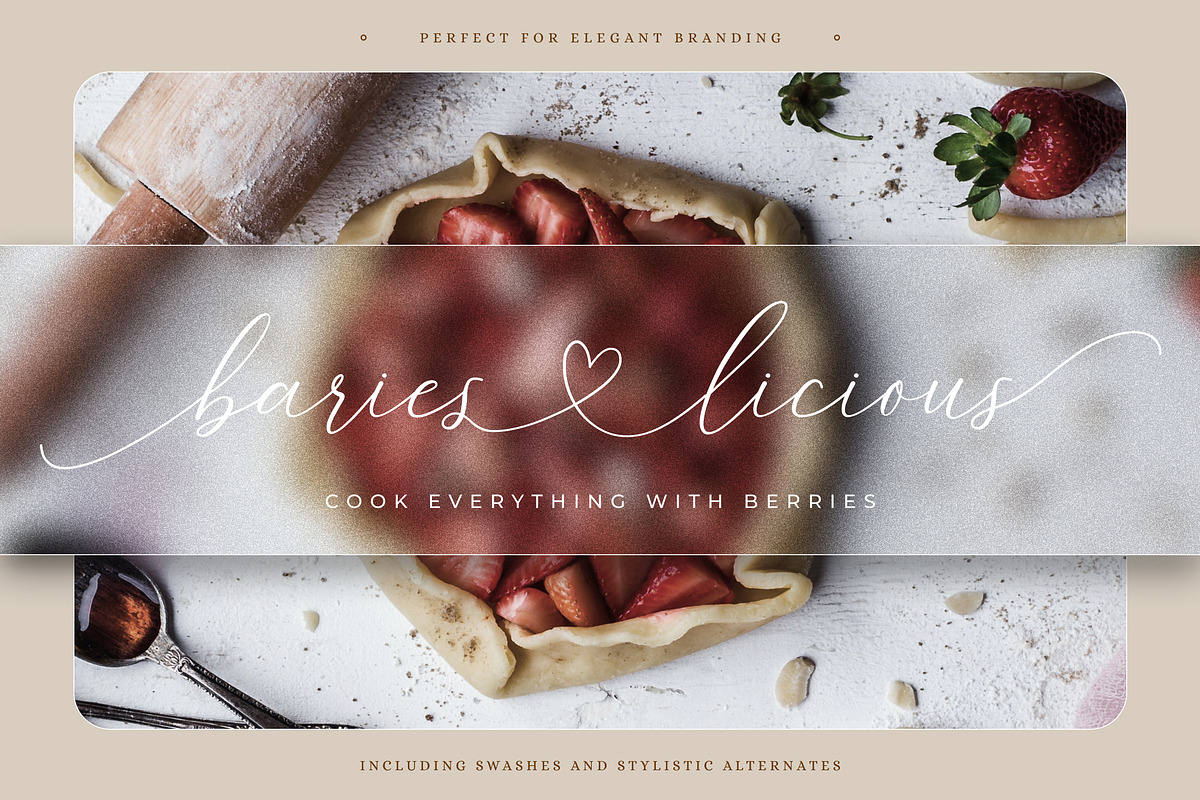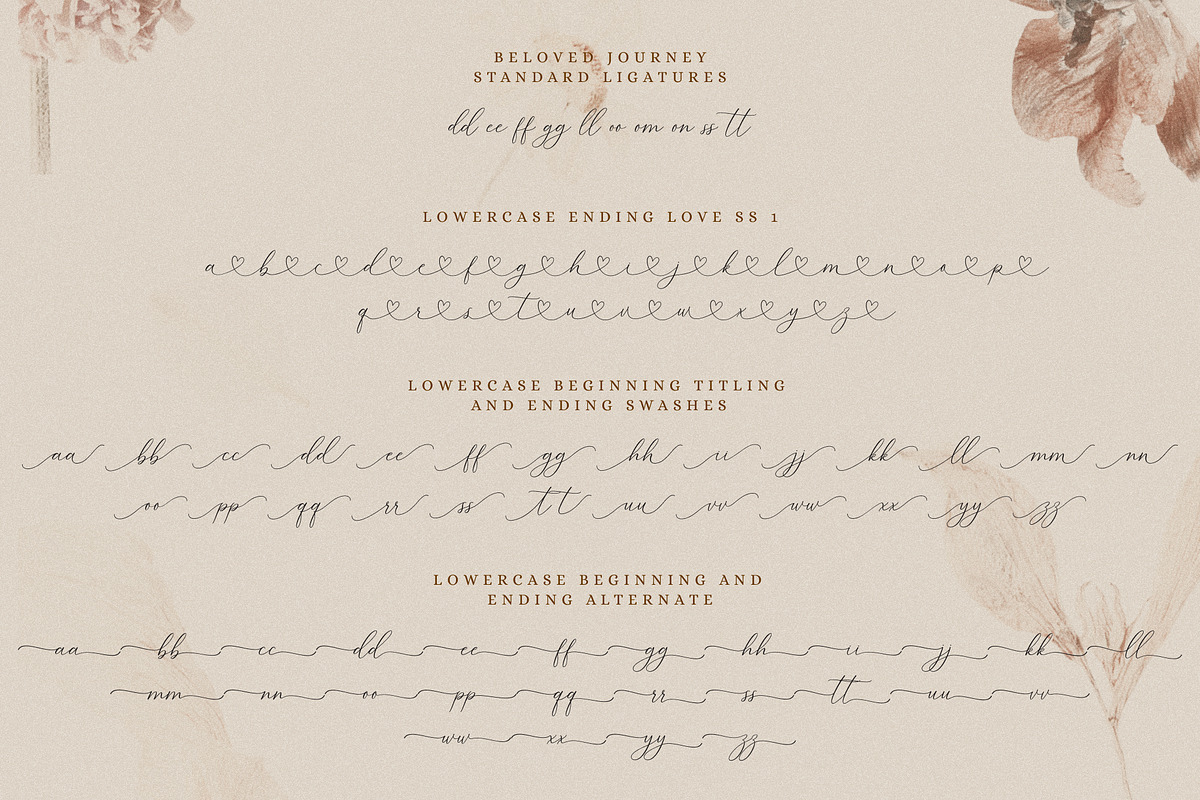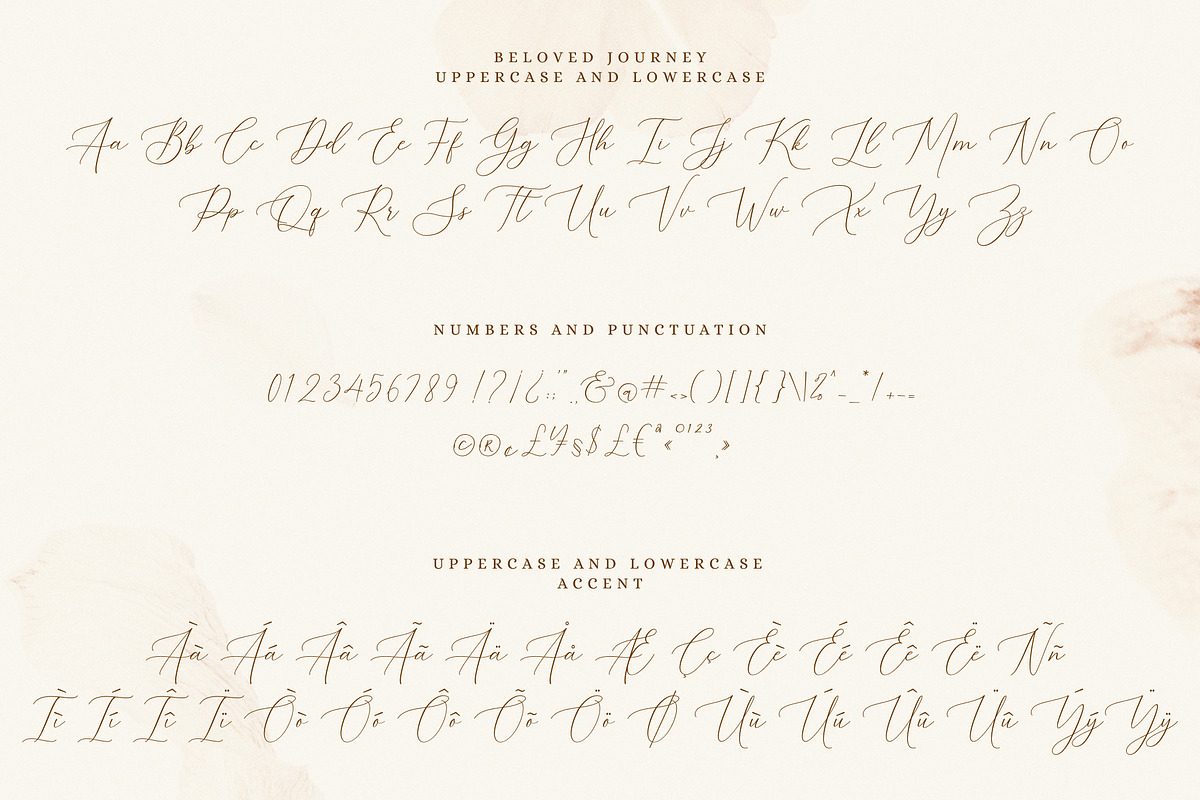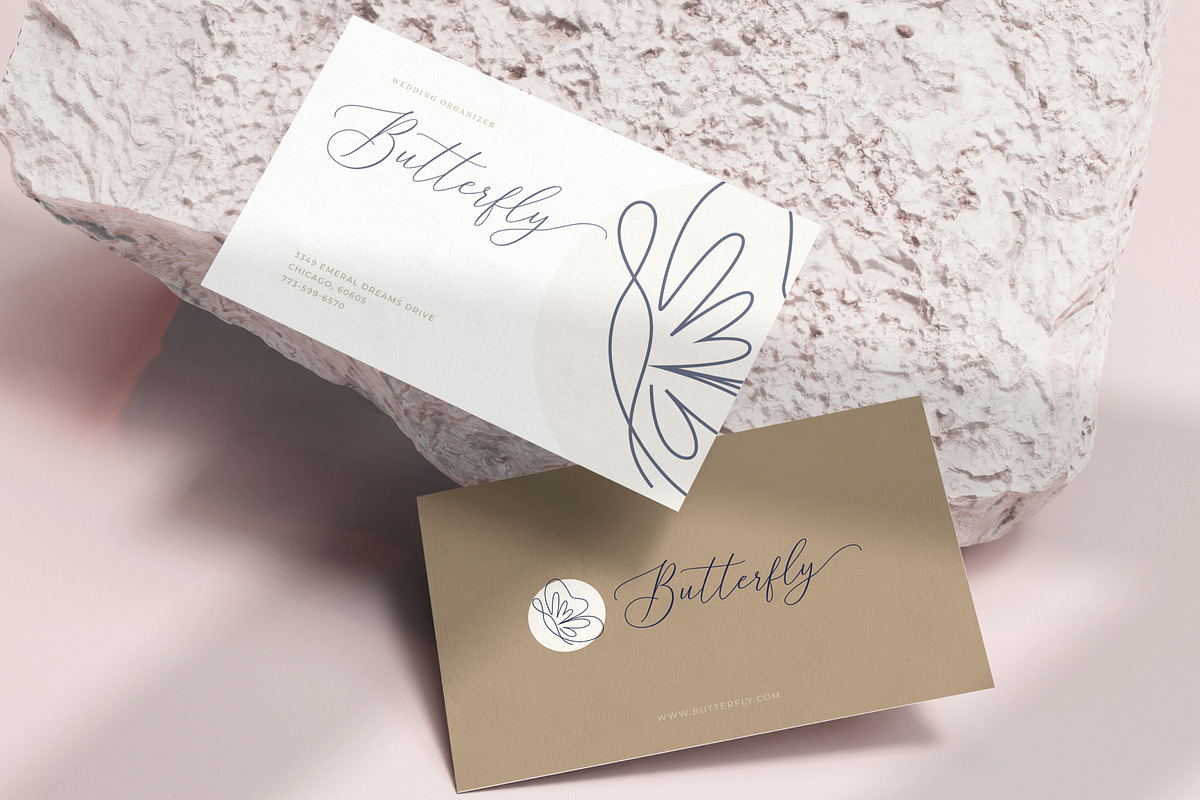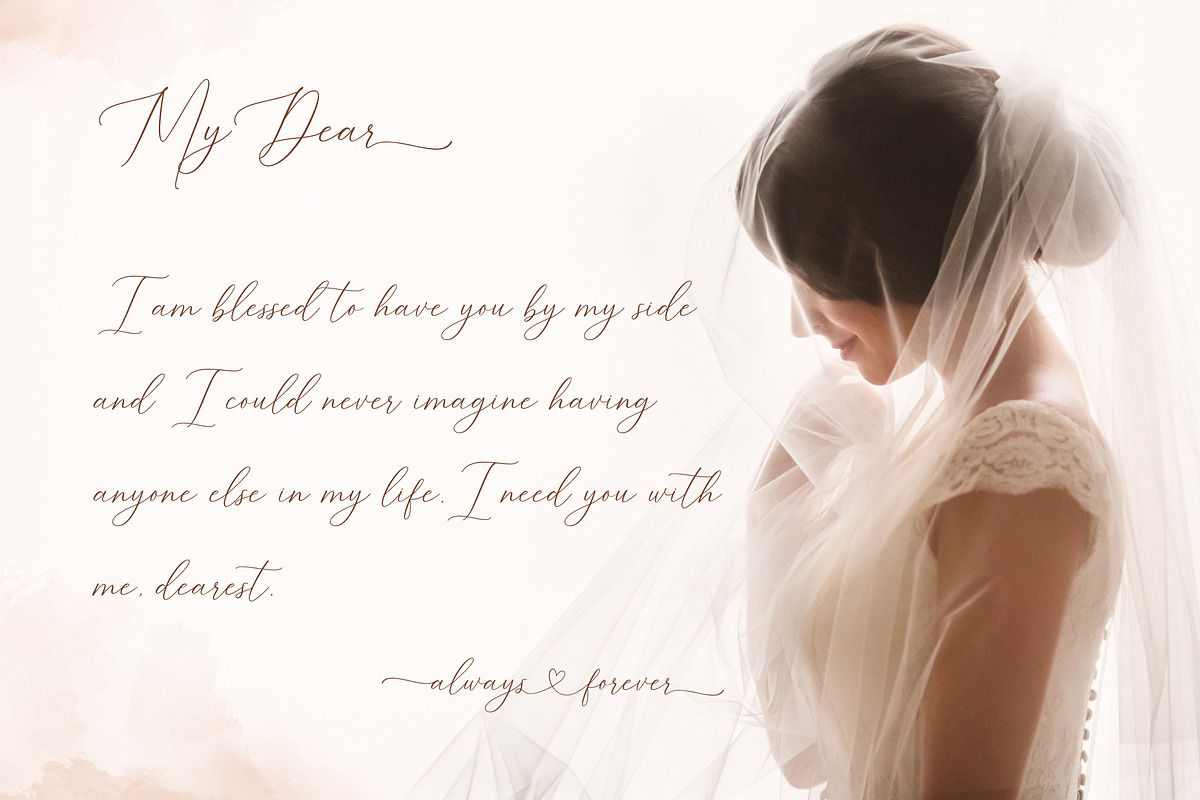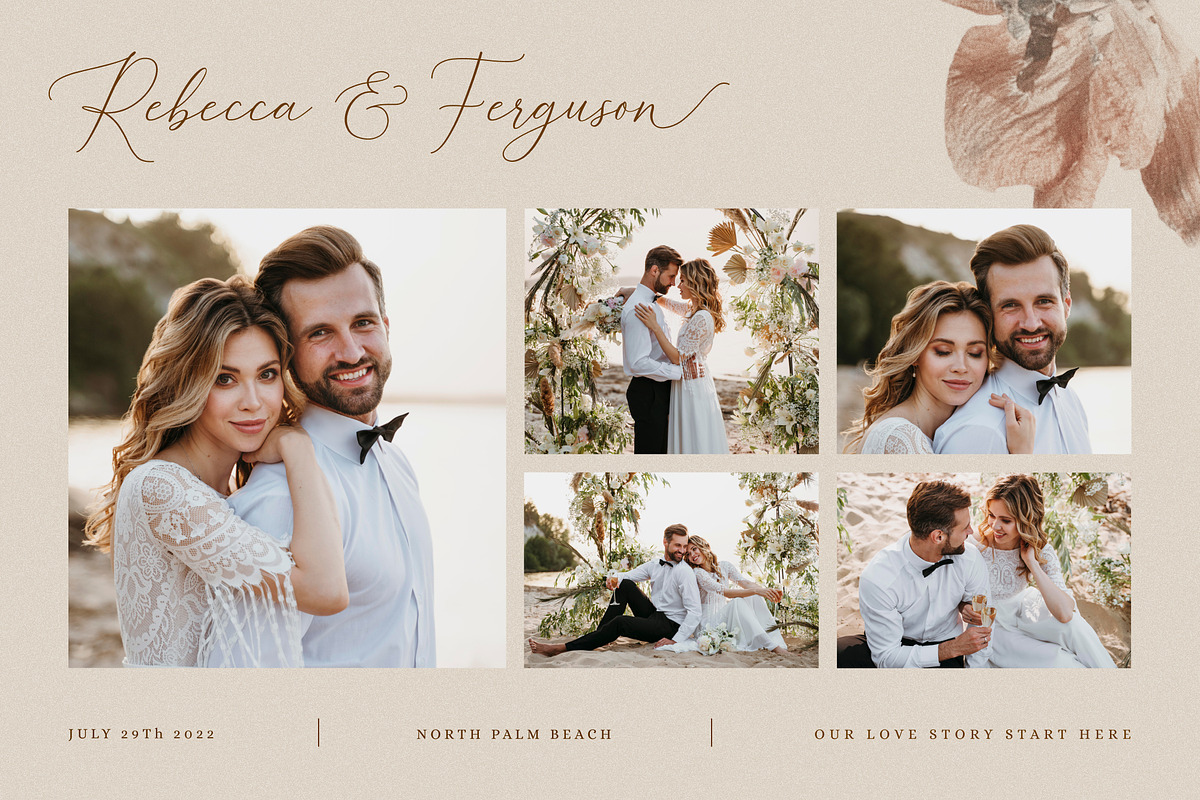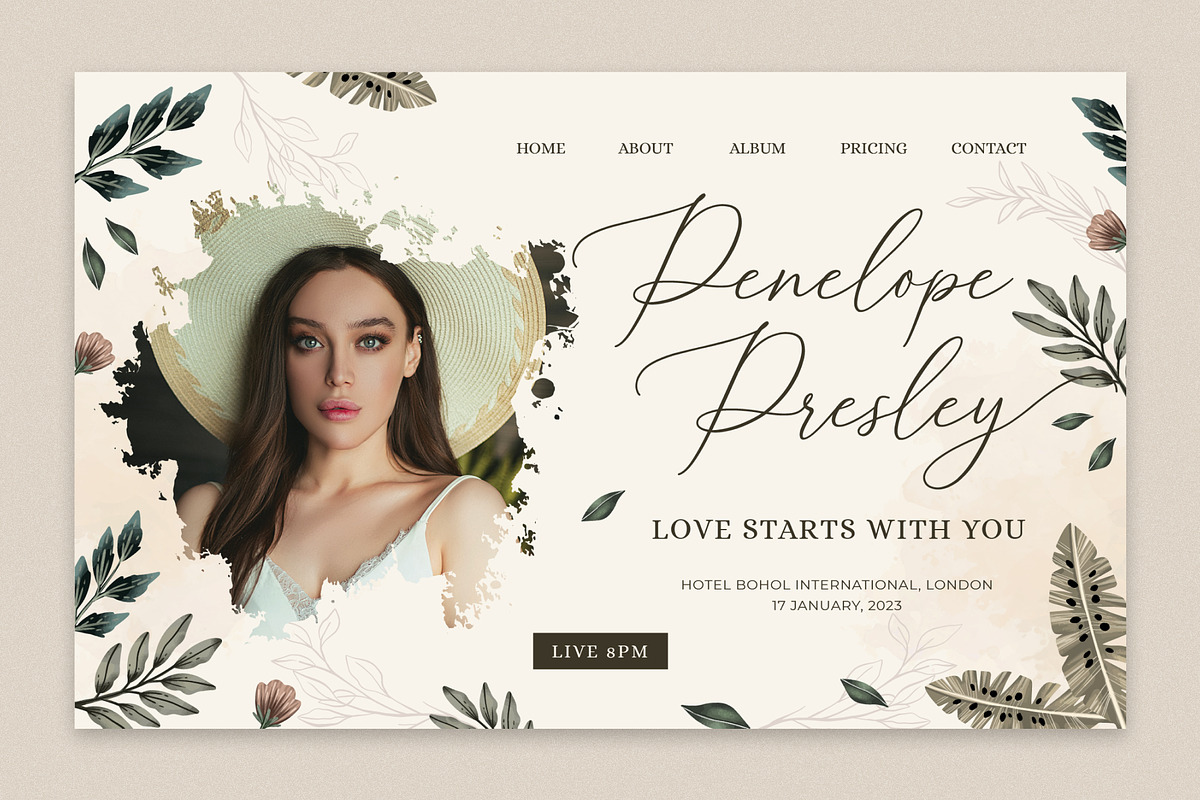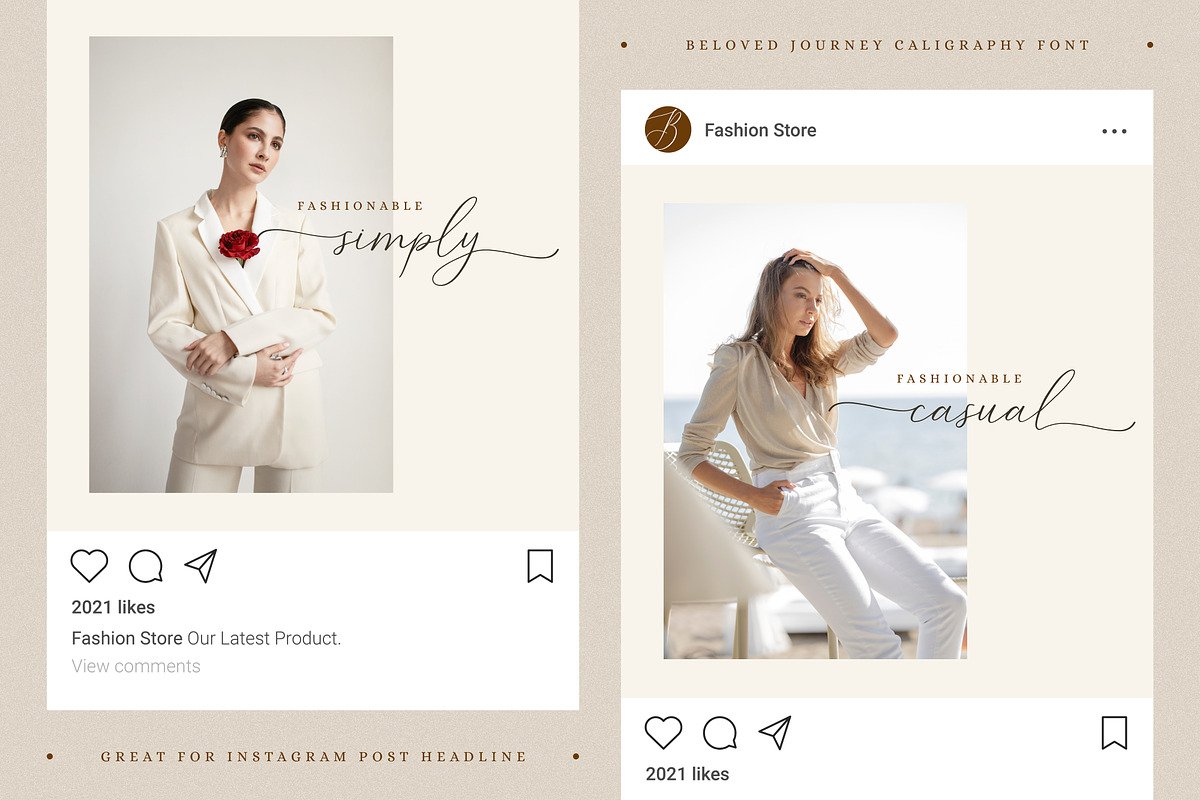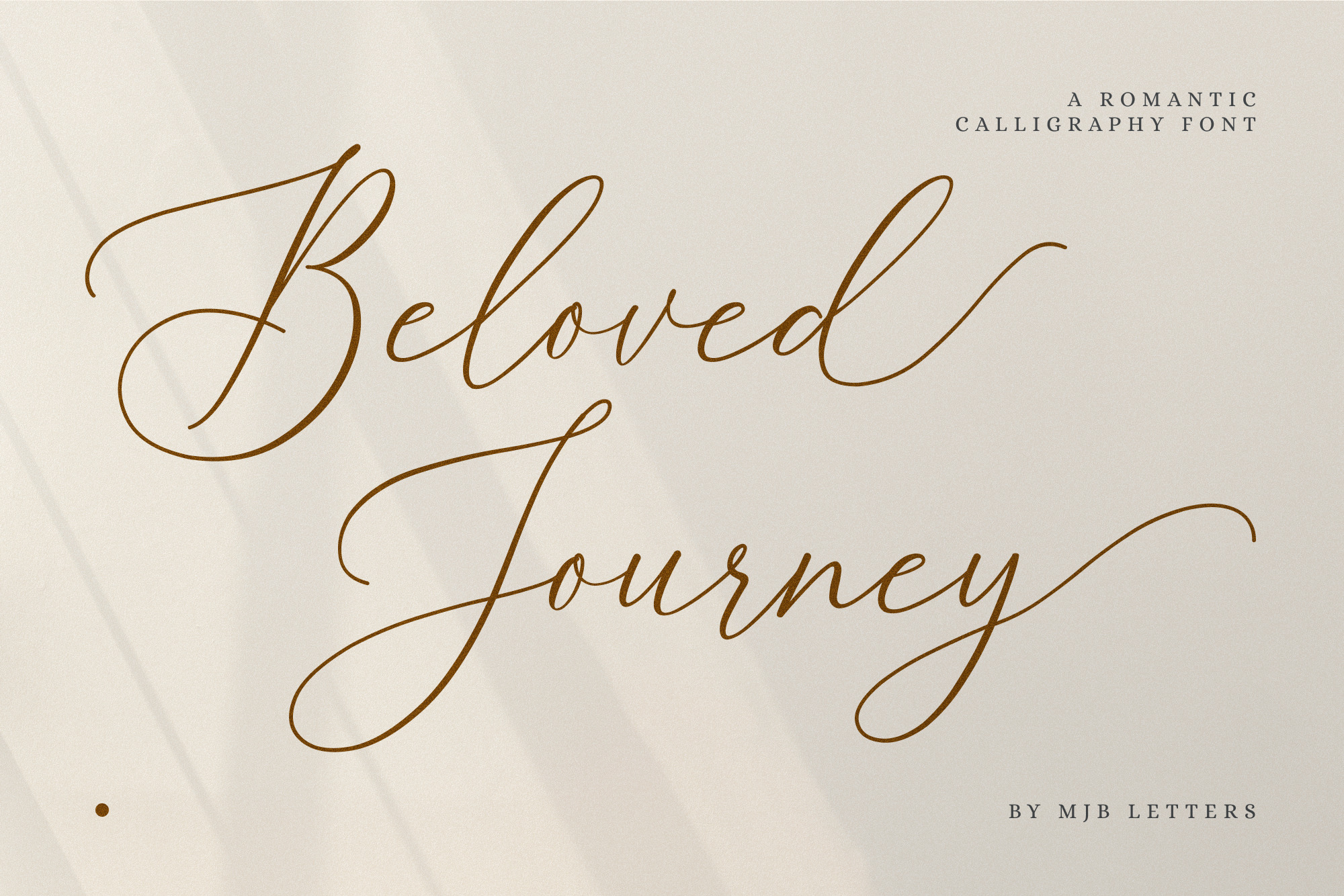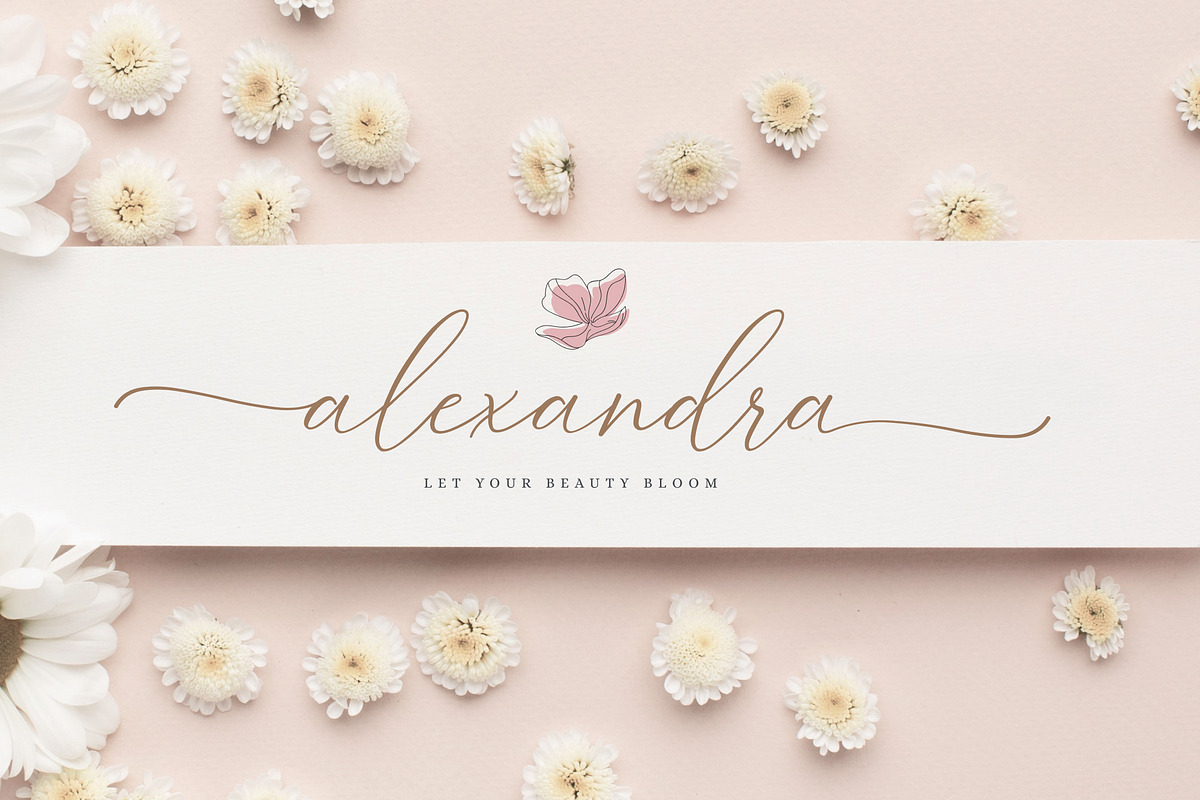
Beloved Journey - A Romantic Font
'Beloved Journey' is a modern and romantic script font with an elegant style and has beautiful and unique characters in each glyph. This font also has a special character, namely connecting hearts which is very suitable for use in romantic and essential moments in your life. We also added some alternatives and ligatures that are very cool and can be applied easily. This font is very suitable for wedding invites, branding designs, poster design, fashion design, decor, signature, watermark, quotes and more.